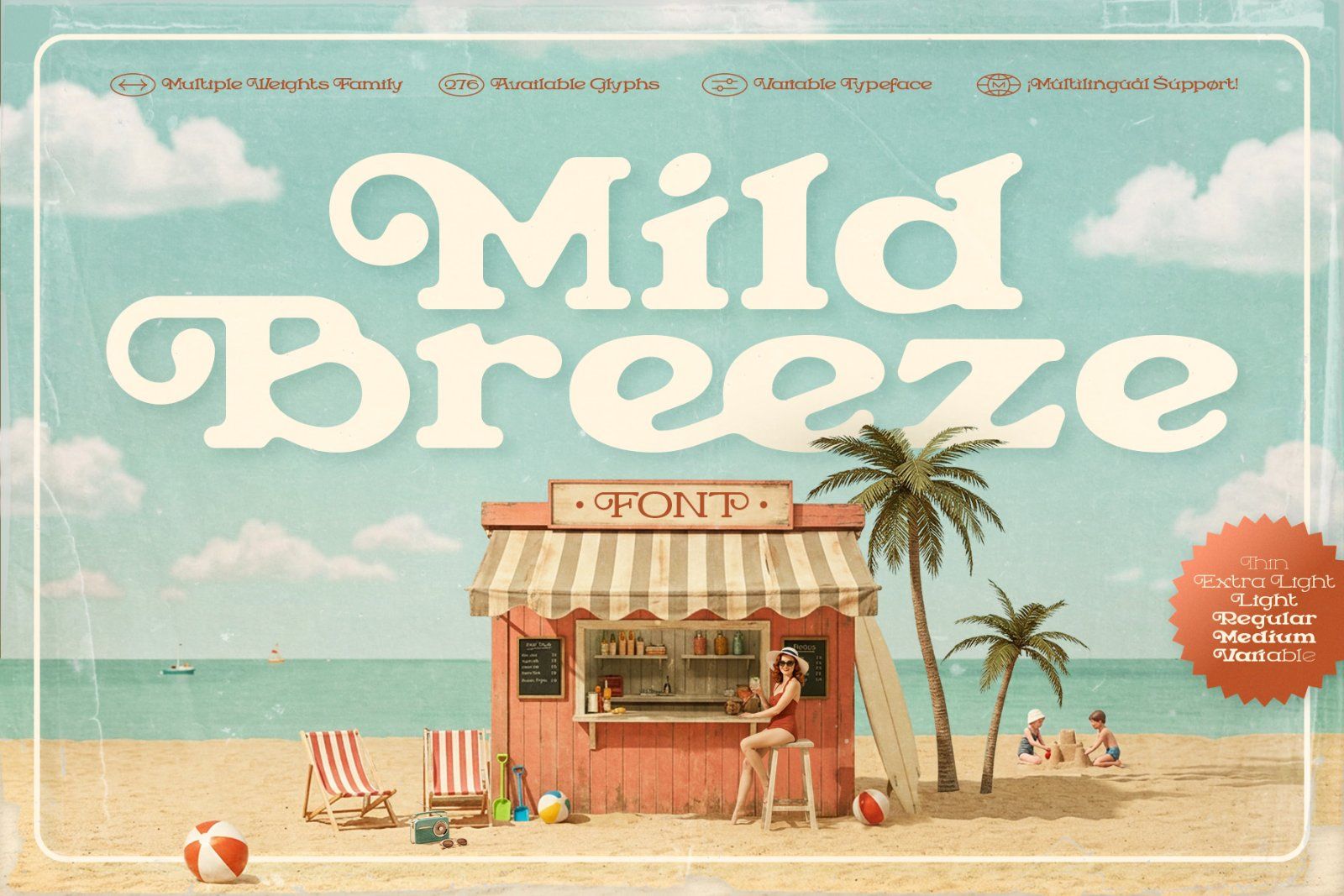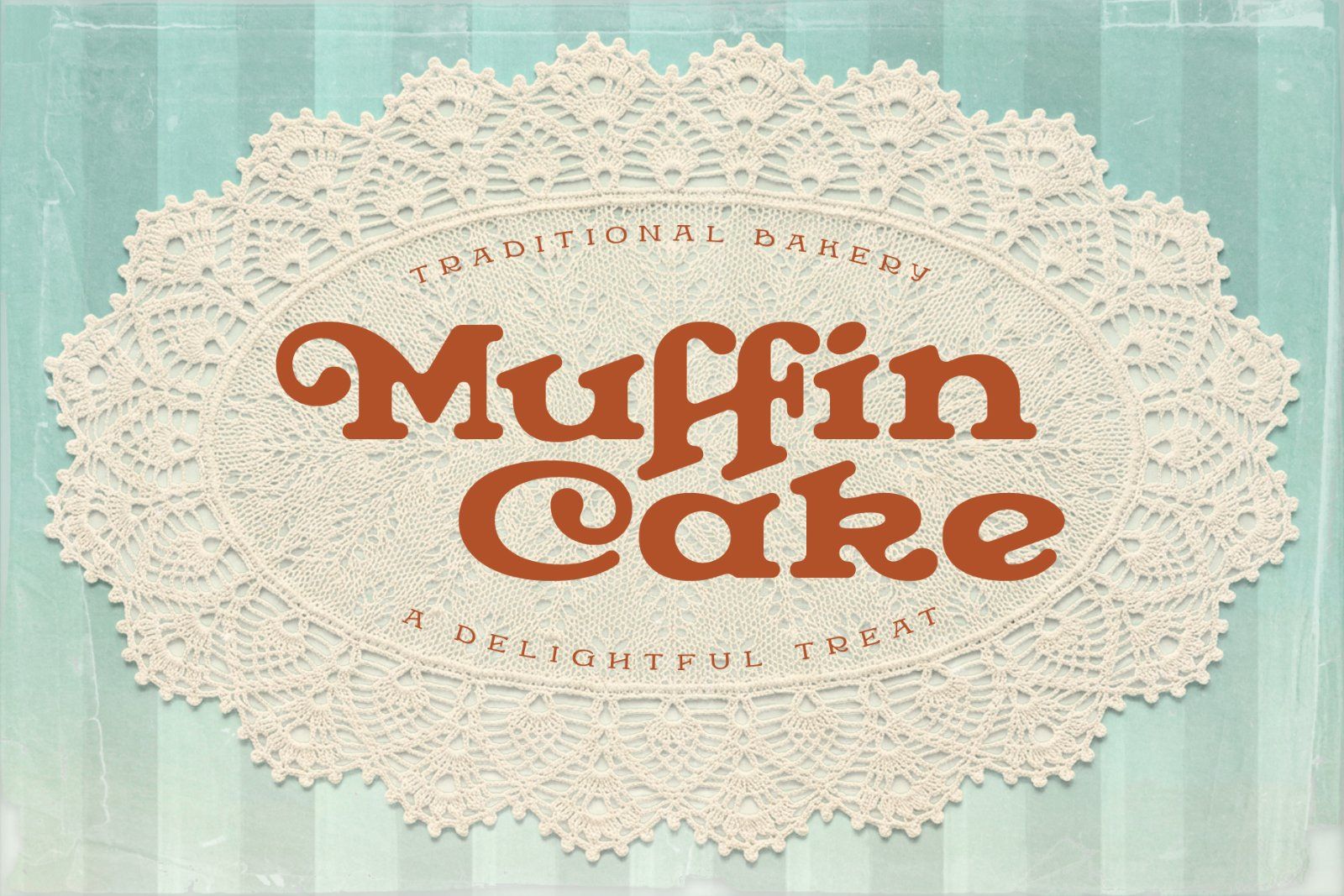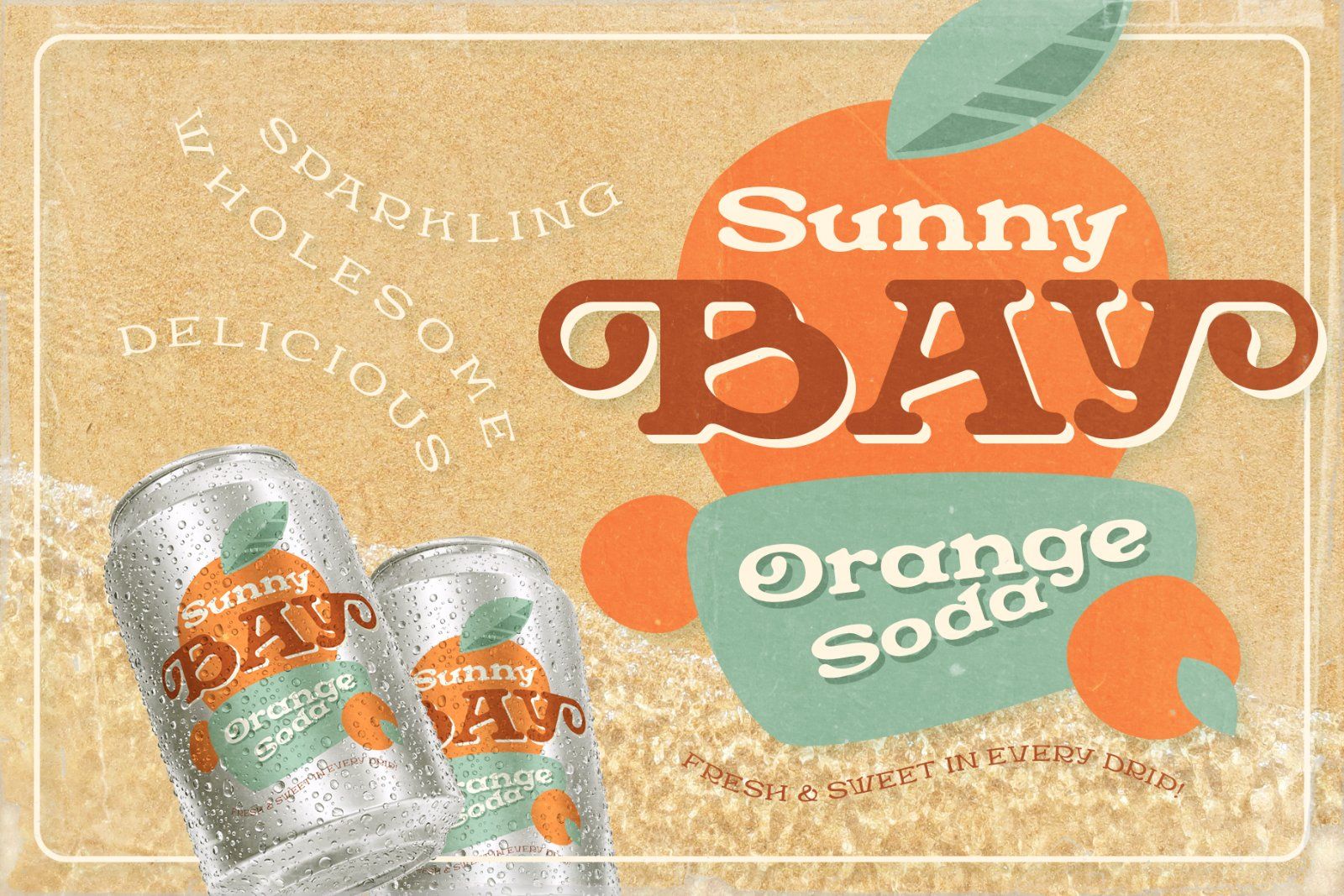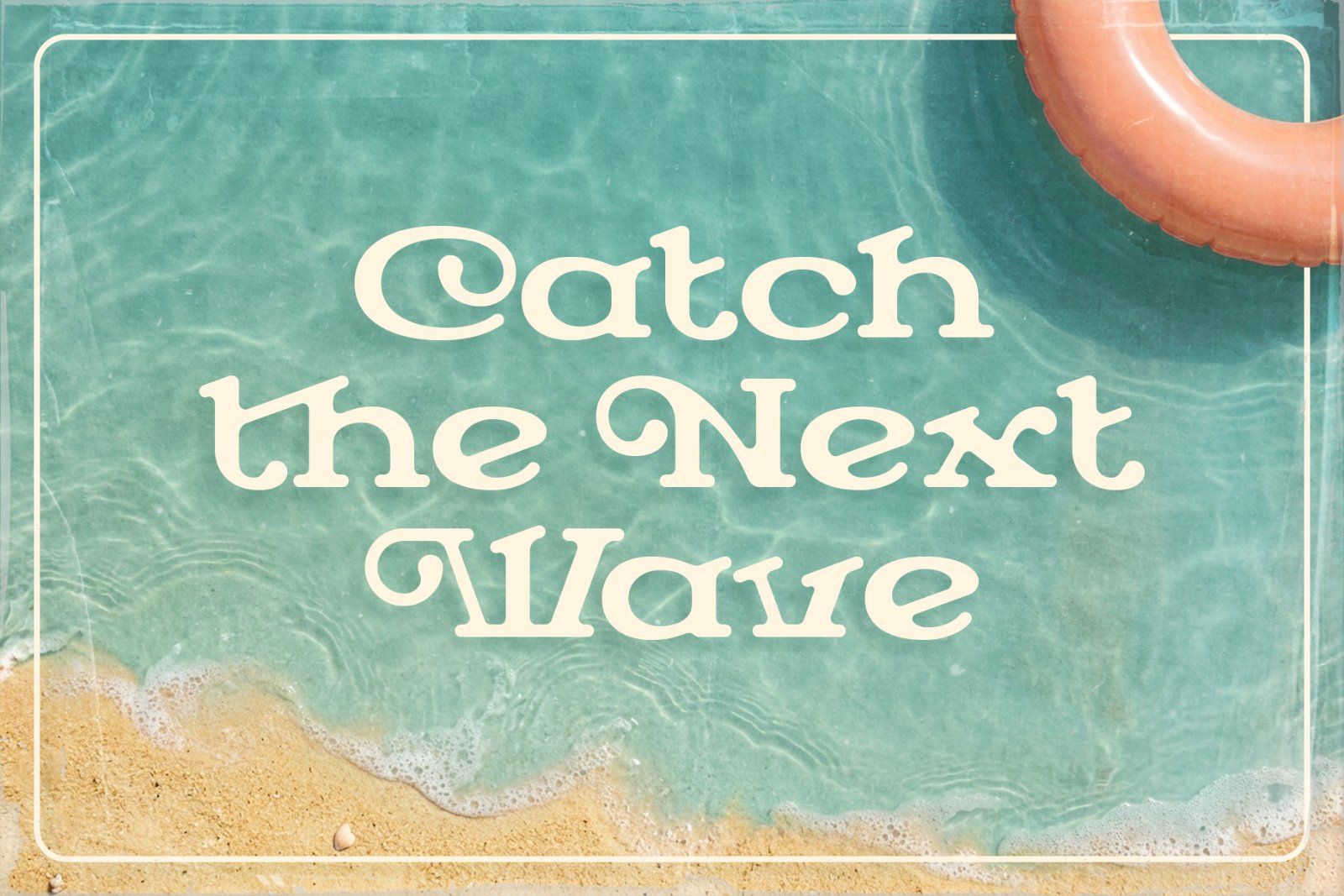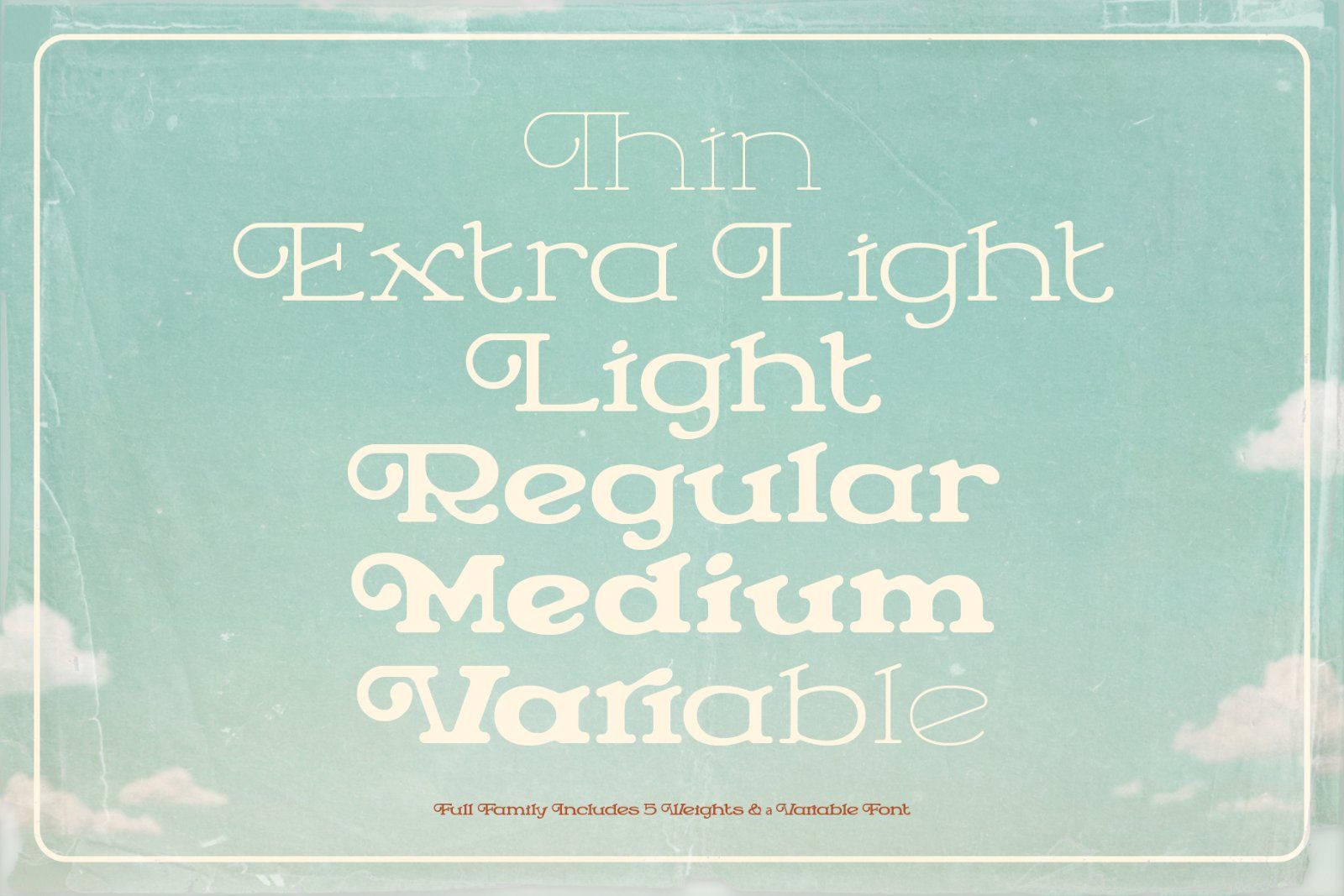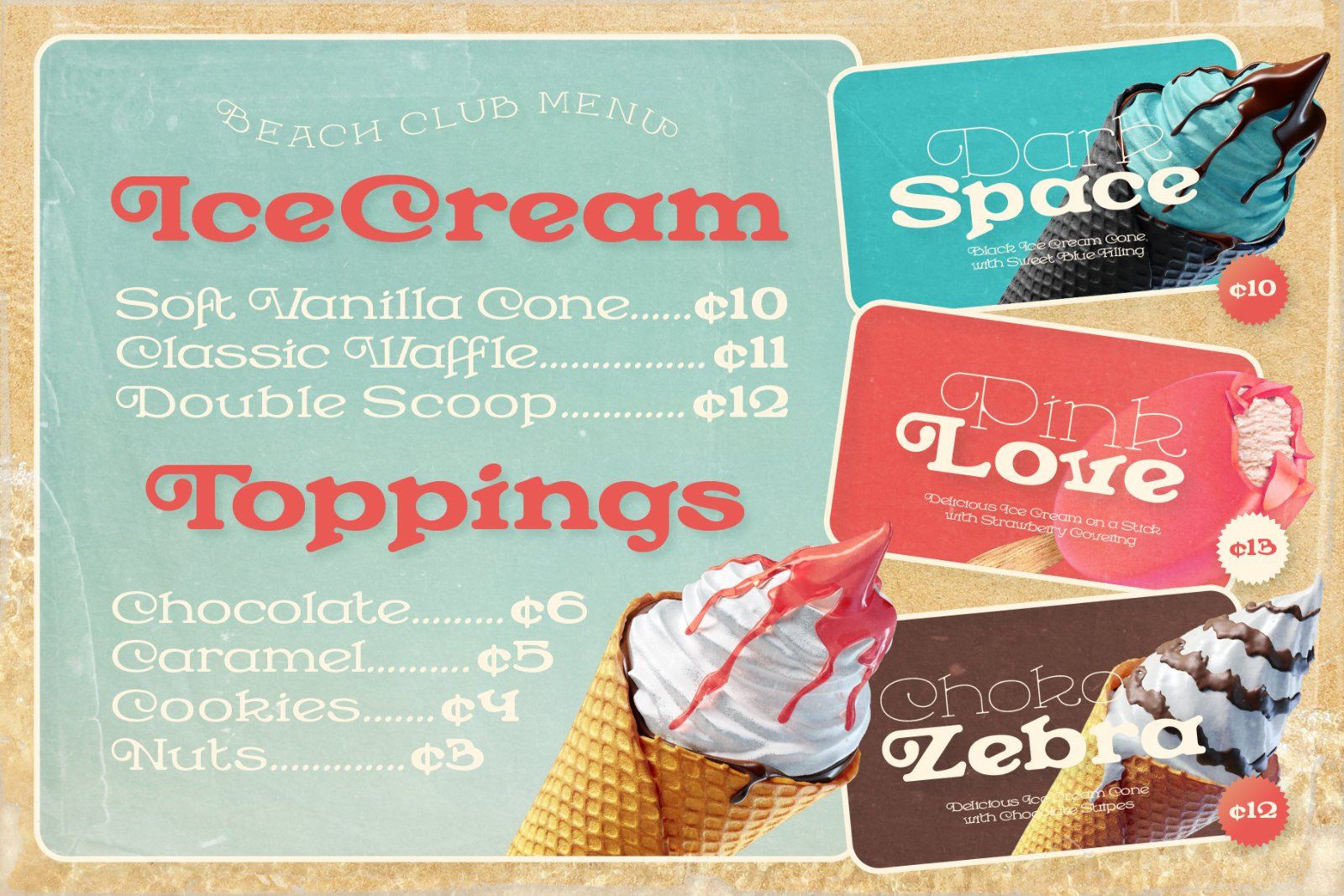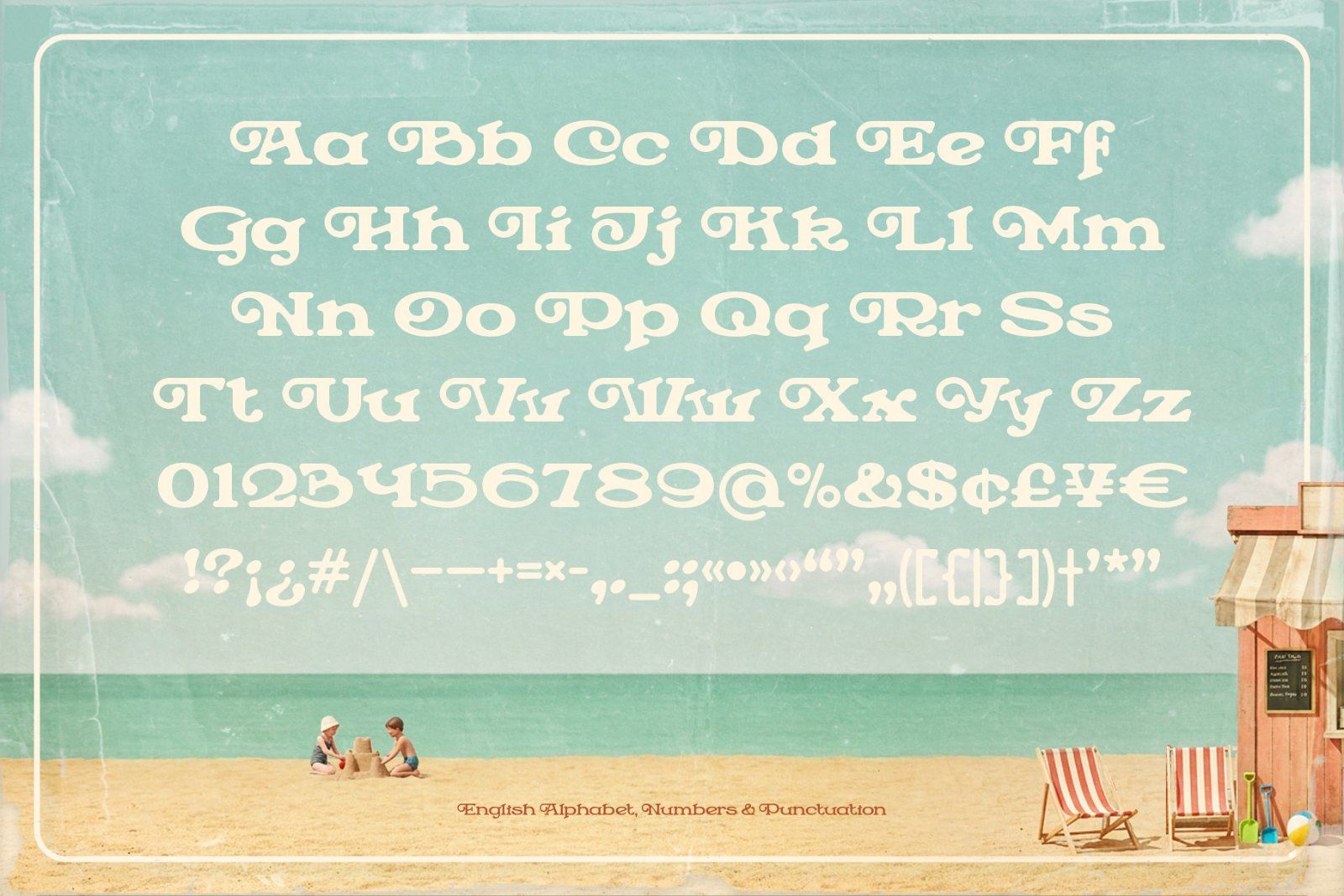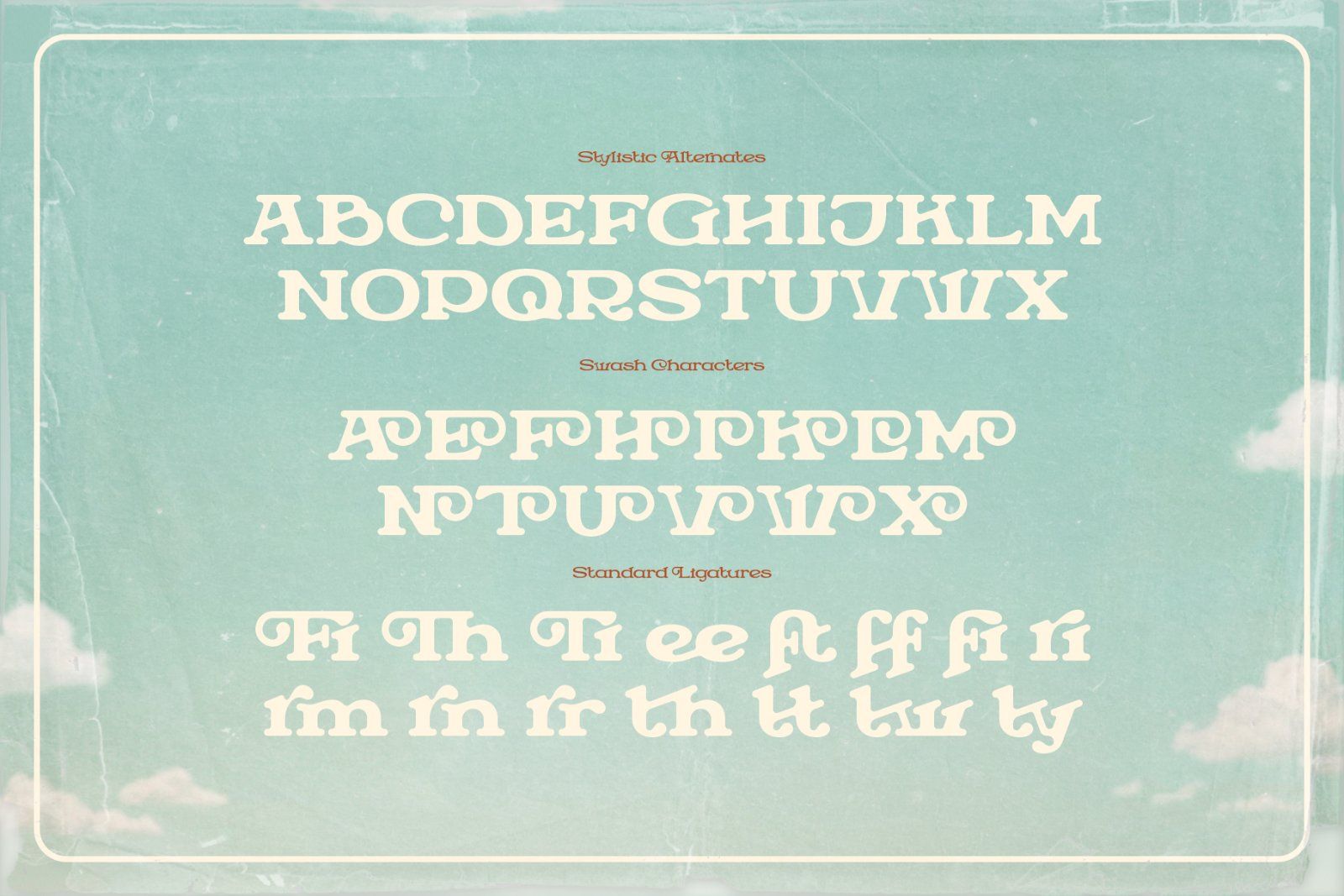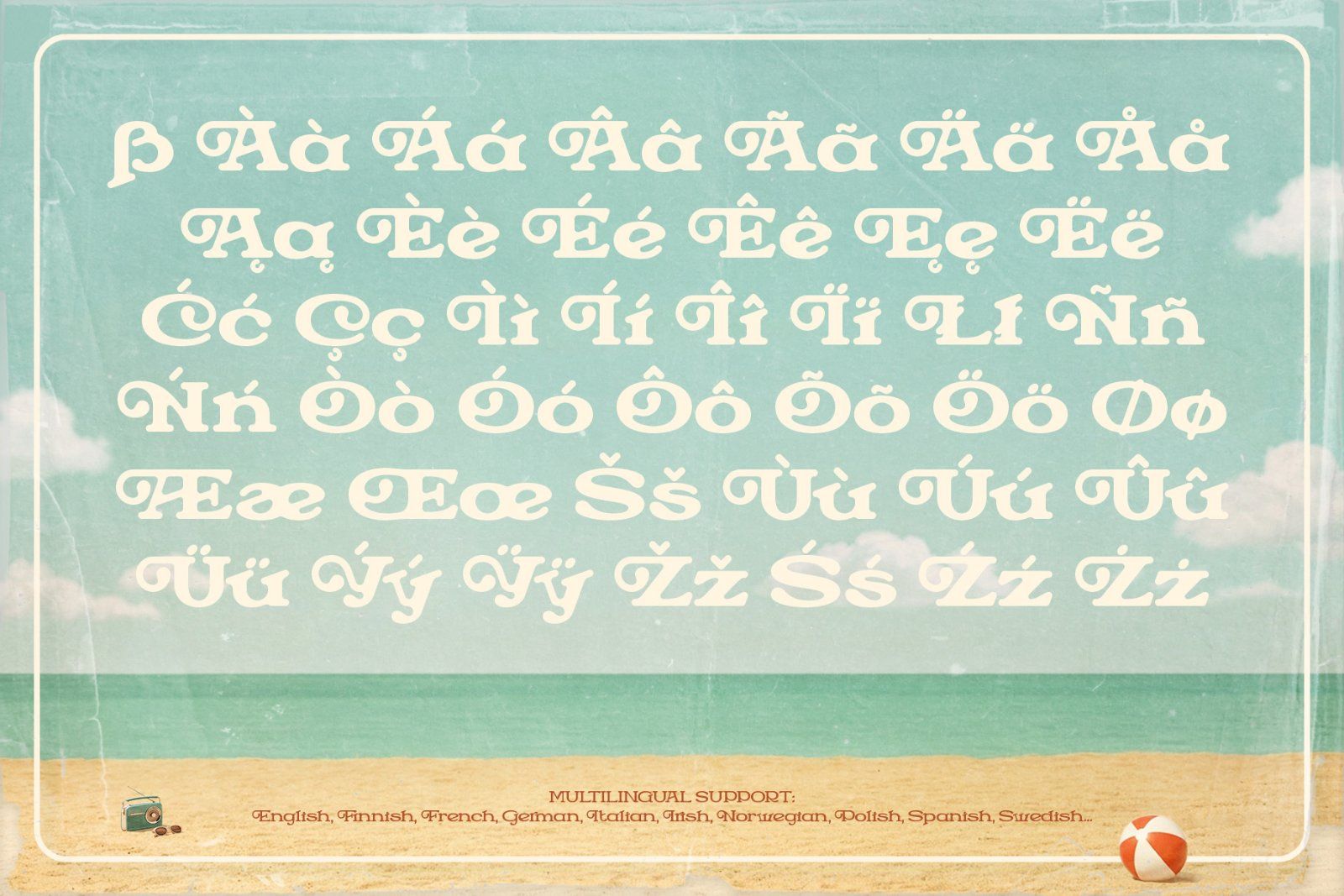
Introducing Mild Breeze, a smooth and elegant serif font inspired by the relaxed charm of vintage design. Blending classic sophistication with a warm, nostalgic character, Mild Breeze is perfect for branding, packaging, editorial layouts, invitations, and any project that calls for a timeless yet approachable look.
Mild Breeze is available in 5 different weights, ranging from Light to Medium. For even greater versatility, the family also includes a Variable Font version, allowing seamless weight adjustments within a single font file.
Each Mild Breeze font has a set of 276 characters, including ligatures, alternates, swashes and multilingual support. Check out the screenshots to see the full character set.